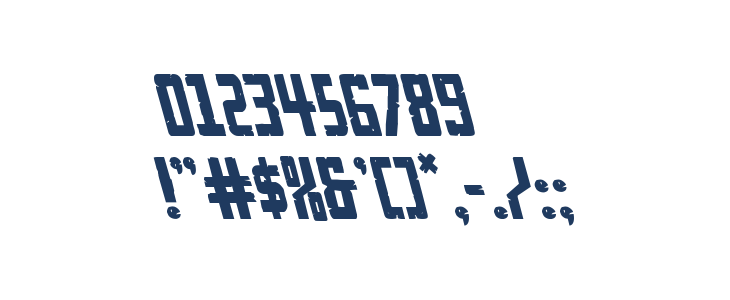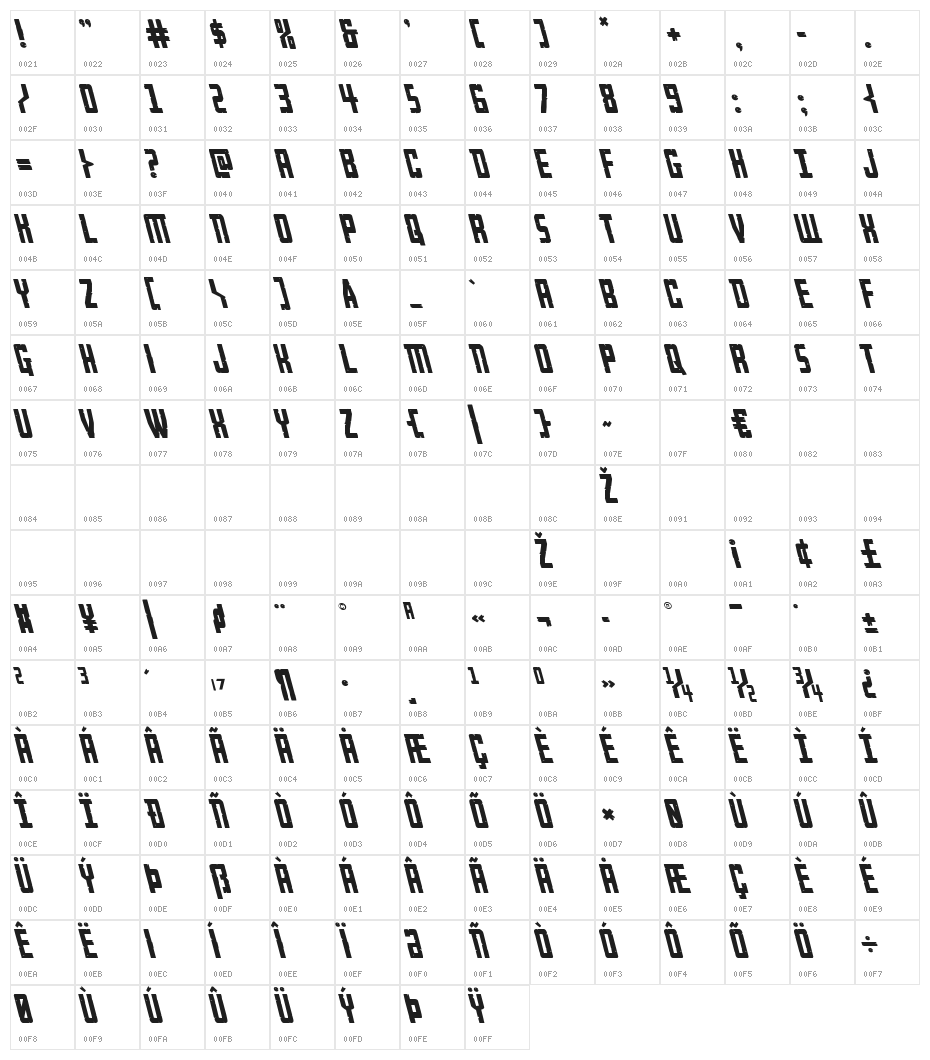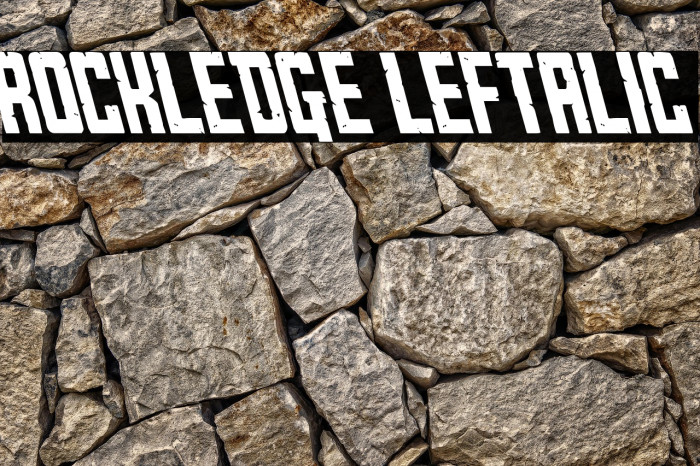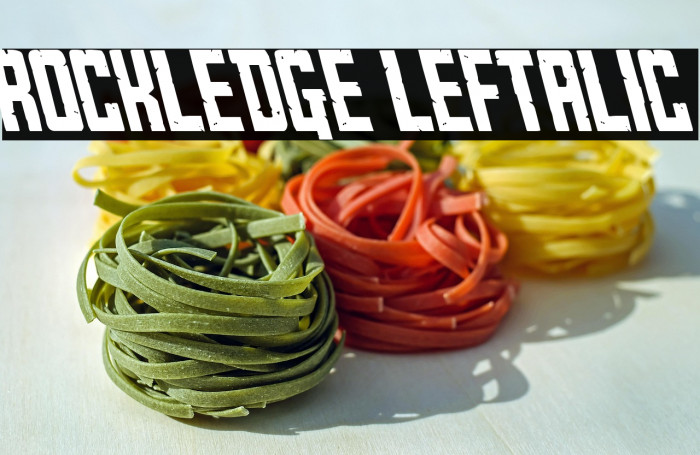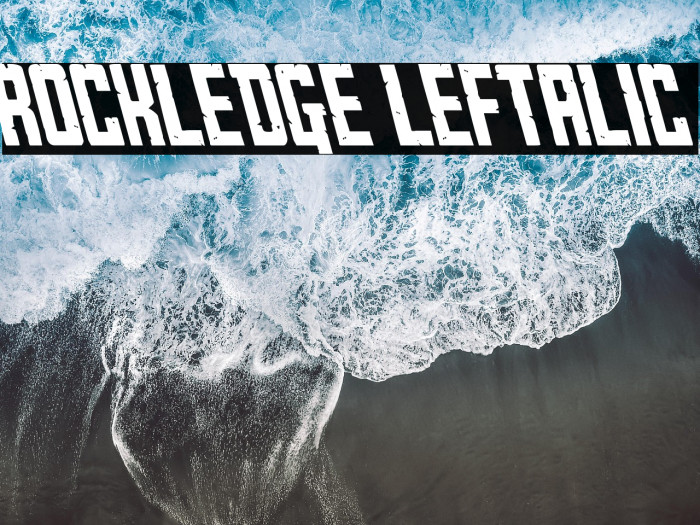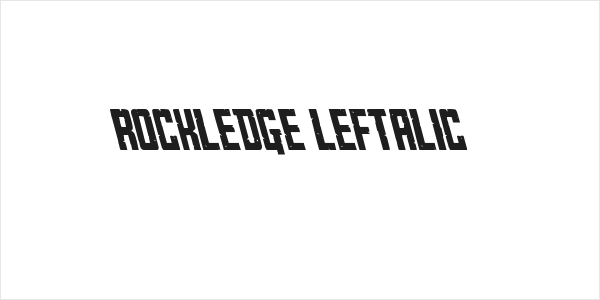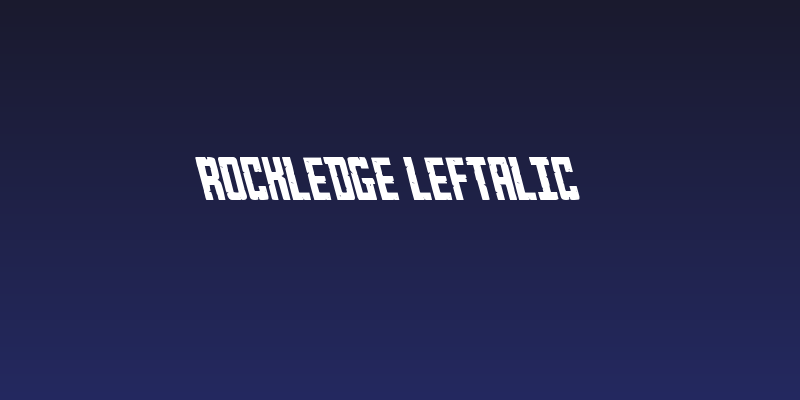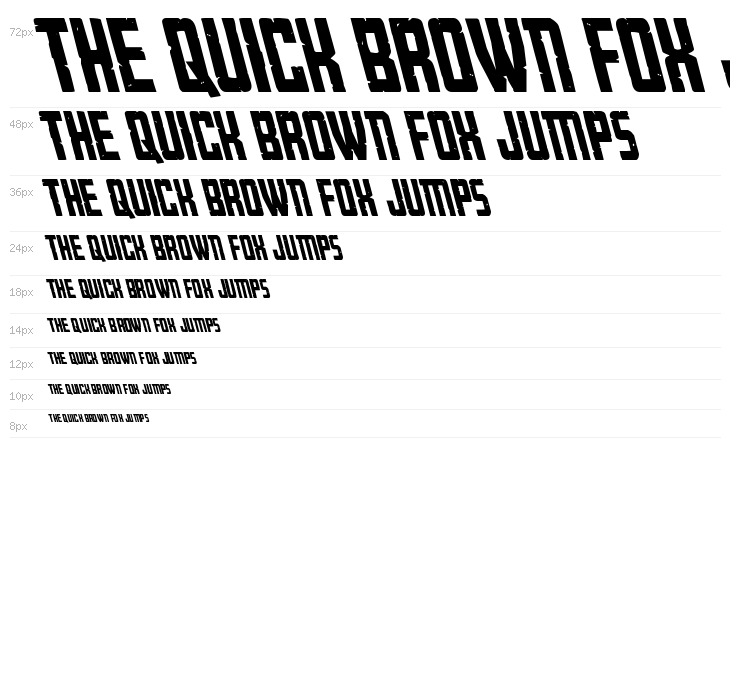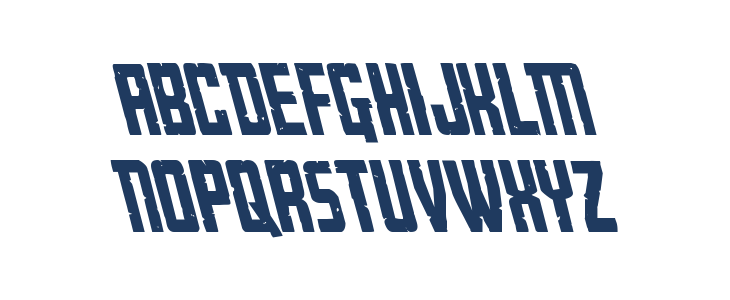
Rockledge Leftalic Font
Rockledge Leftalic Description
This font features a bold and angular design with a distinct slant to the left, giving it a dynamic and energetic appearance. The characters are blocky and robust, with sharp edges and a strong presence. The uppercase and lowercase letters maintain a consistent style, and the numerals are equally bold and impactful. Special characters are designed to match the overall aesthetic, ensuring uniformity across all glyphs. The font's unique style makes it suitable for attention-grabbing headlines and designs that require a strong visual impact.